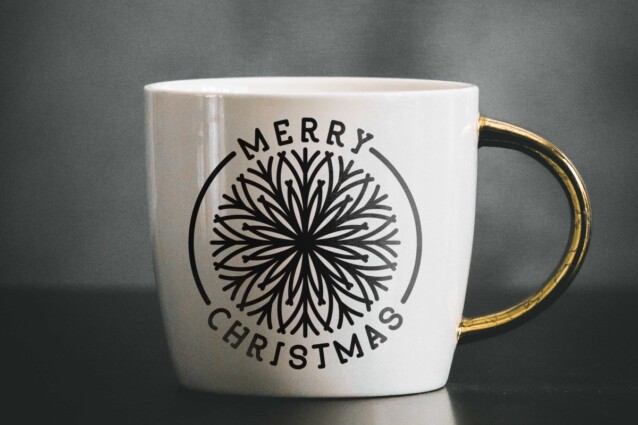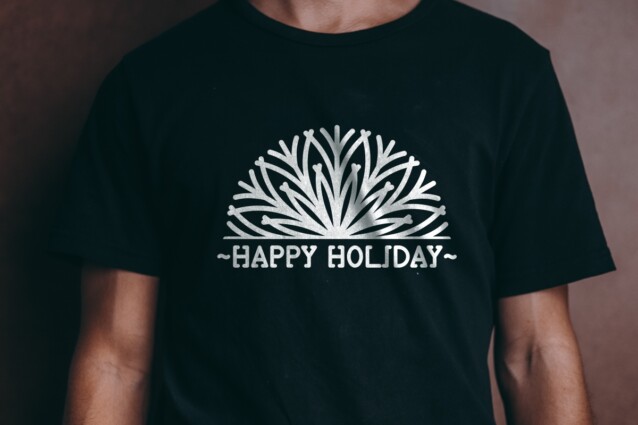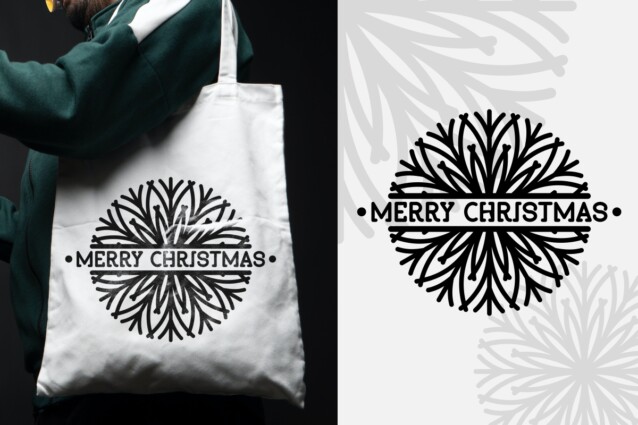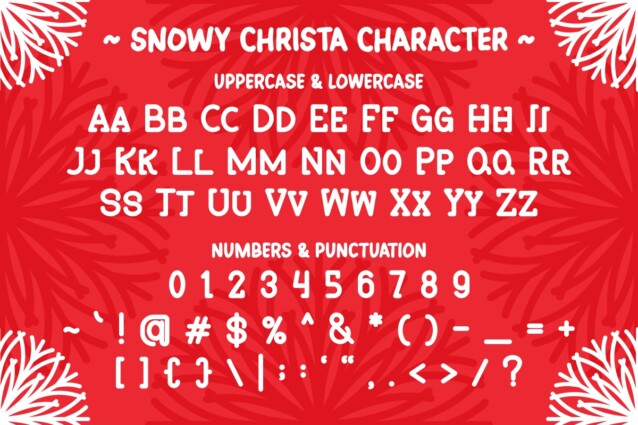
Embrace the enchanting spirit of Christmas with our ‘Snowy Christa’ cute display font. This whimsical typeface captures the joy and charm of the holiday season, making it the perfect choice for all your Christmas-themed creative projects.